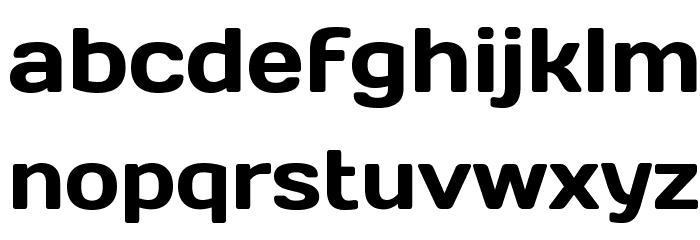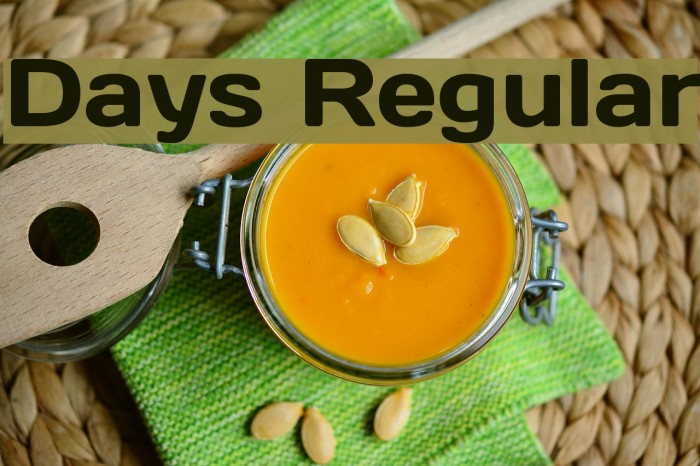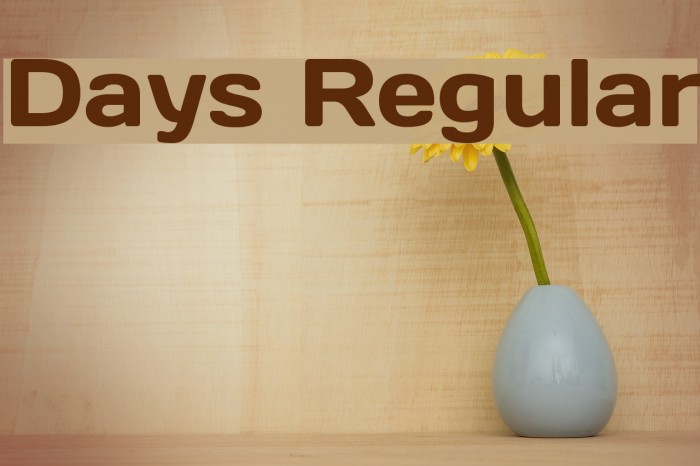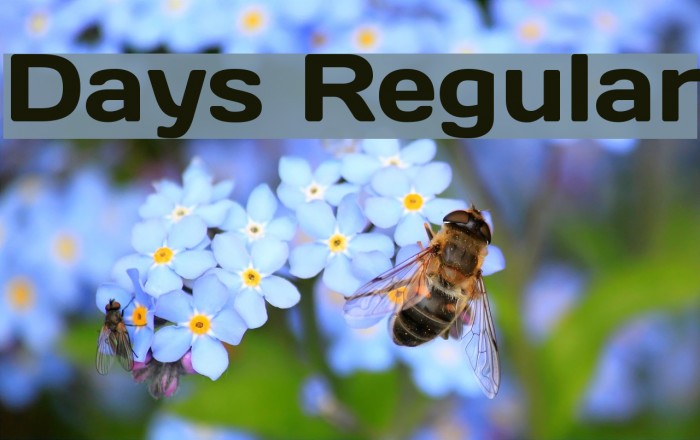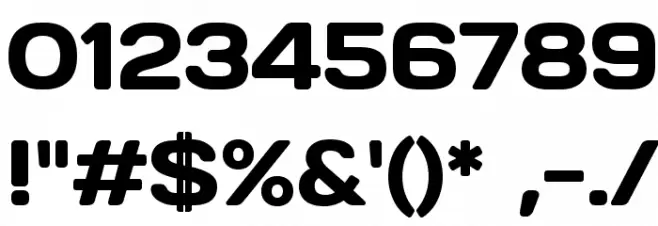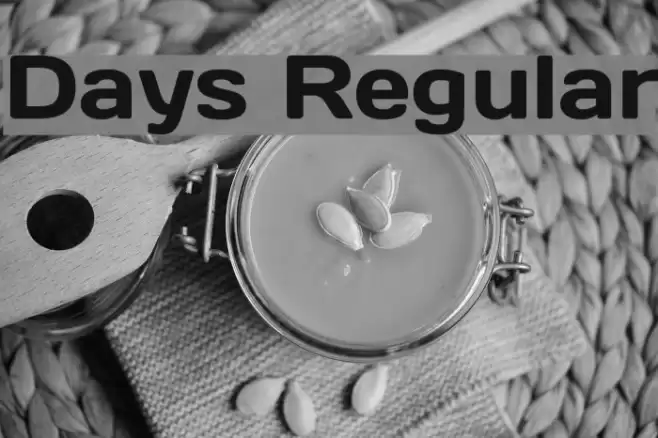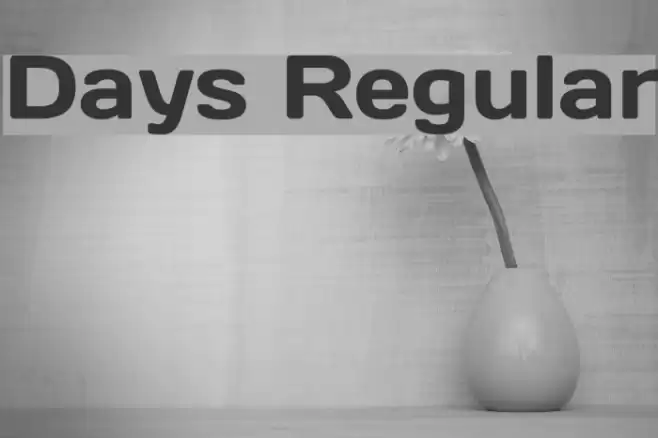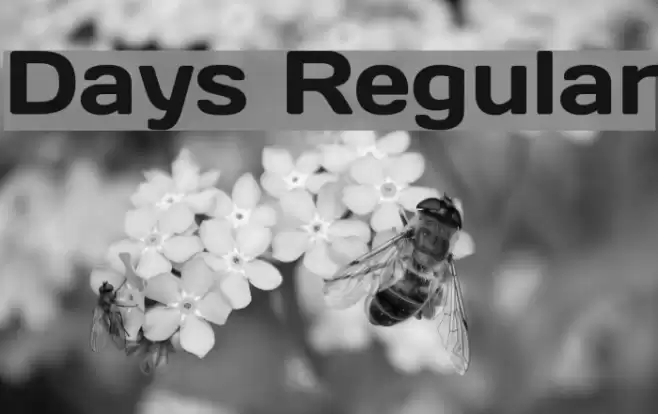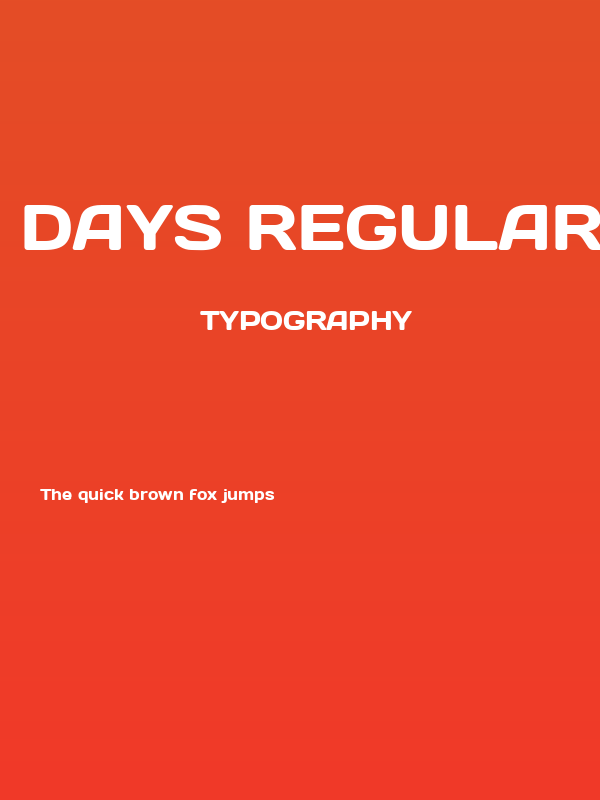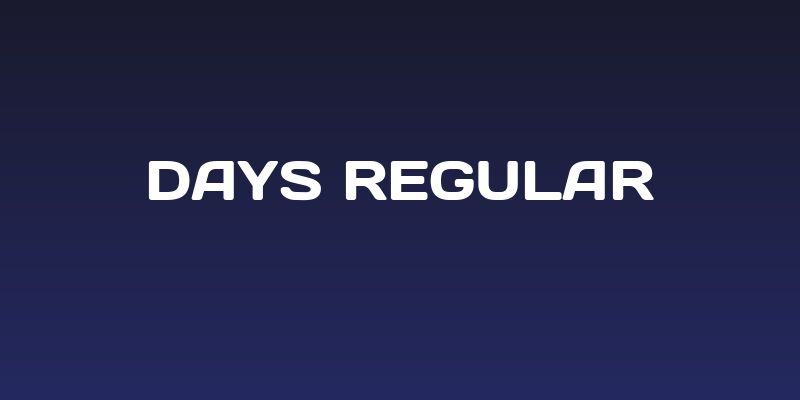
Days Regular Font
This font features a bold and modern sans-serif style with smooth, rounded edges and a clean, uniform appearance. The characters are well-balanced with consistent stroke widths, giving it a solid and confident look. The uppercase letters are slightly wider, providing a strong presence, while the lowercase letters maintain a friendly and approachable feel. The numerals are clear and easy to read, making them suitable for various applications. Special characters are distinct and well-integrated, ensuring versatility in design projects. Overall, this font exudes a contemporary and professional vibe, ideal for digital and print media.
A bold, modern sans-serif font with smooth, rounded edges and a clean appearance.
- Proposed Projects: Ideal for branding, advertising, web design, and editorial layouts.
- Use Case: Headlines, Logos, Digital media